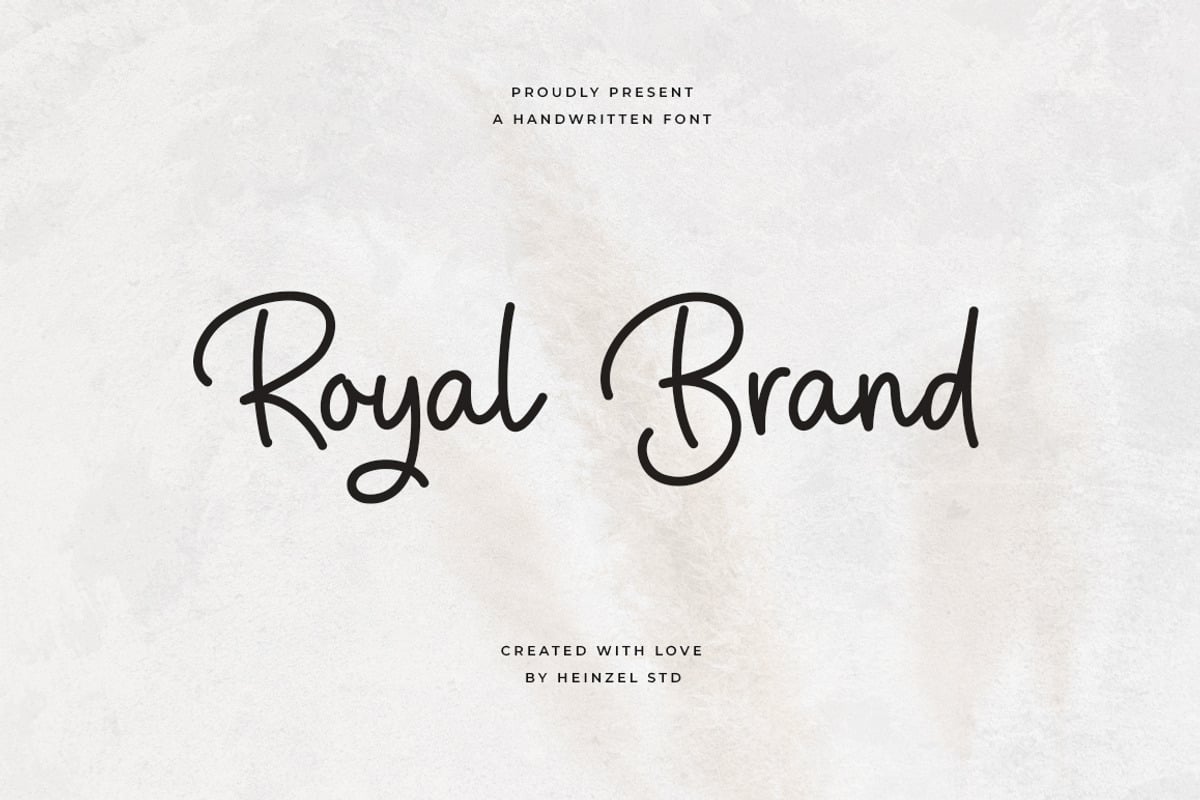
Royal Brand - Handwritten Font
Royal Brand is the flowing, elegant handwritten font your most beautiful projects have been waiting for.
With its incredibly distinct and timeless style, Royal Brand brings an authentic handwritten touch to any design. Whether you're crafting wedding invitations, thank you cards, greeting cards, quotes, logos, or business cards — this typeface delivers stunning results every time.
Font Features:
- Uppercase and Lowercase characters
- Numerals and Punctuation
- Alternates
Fall in love with its graceful letterforms and use it to create spectacular designs that feel personal, polished, and truly one of a kind.